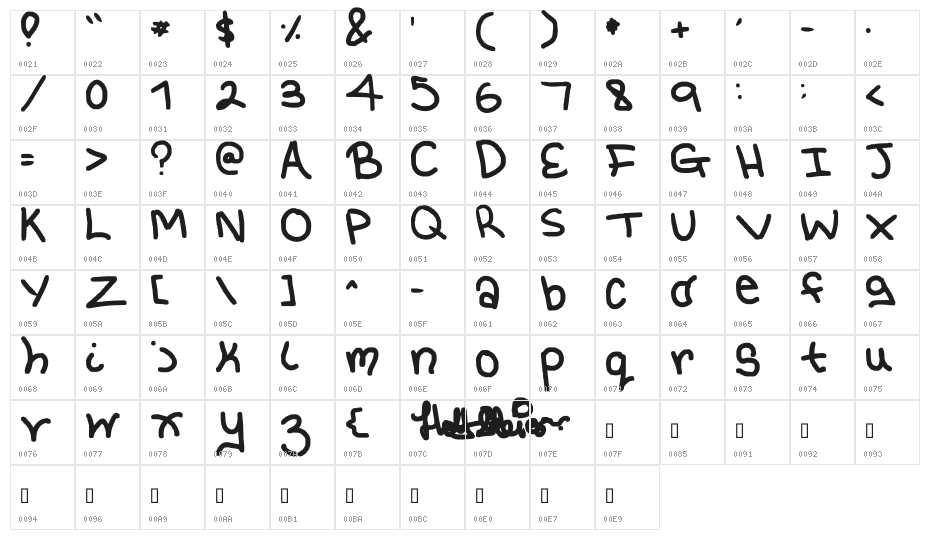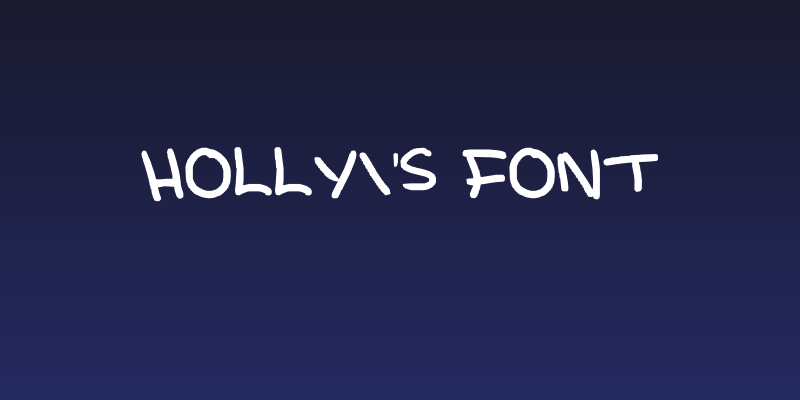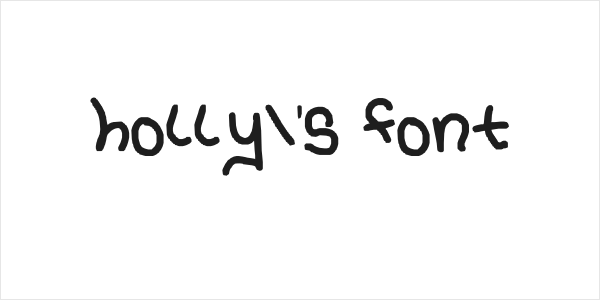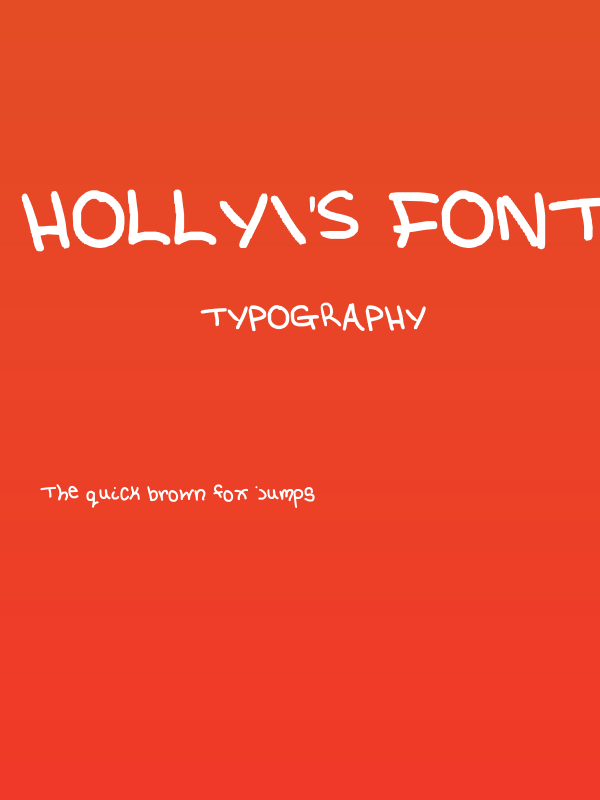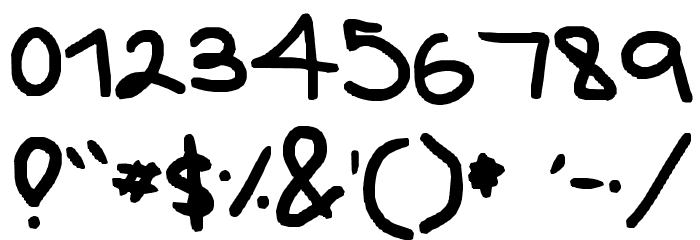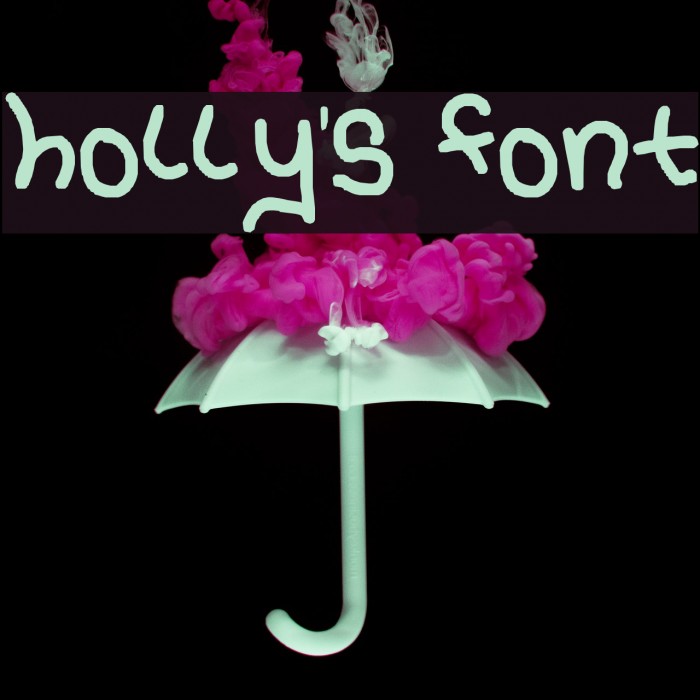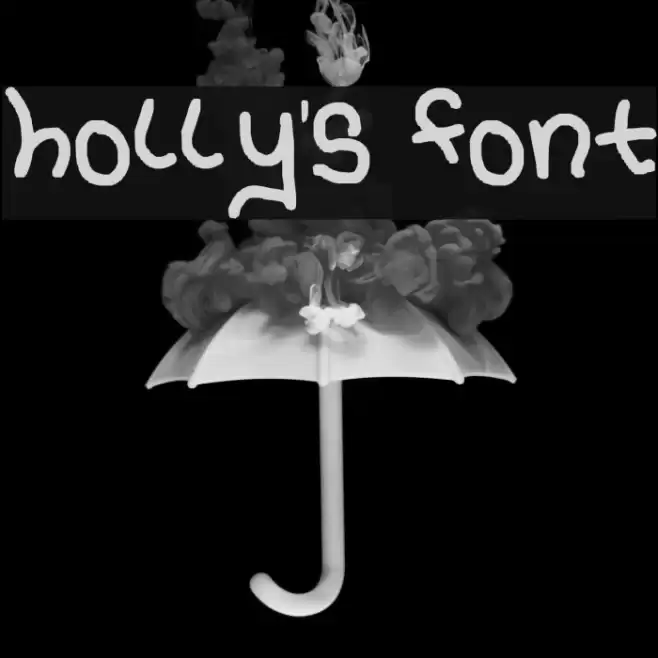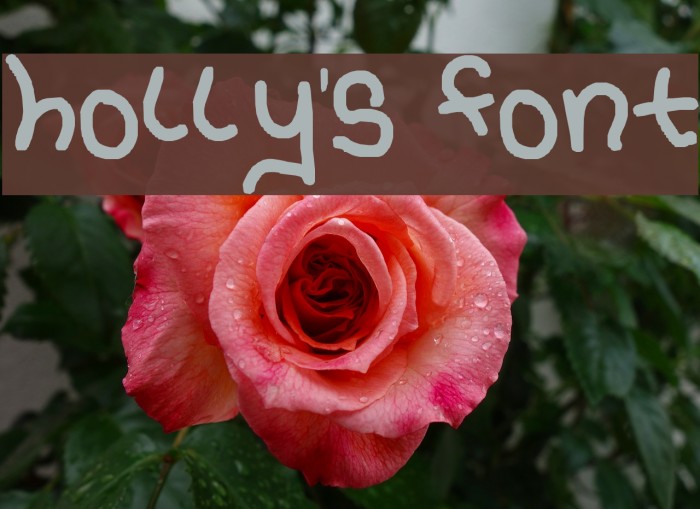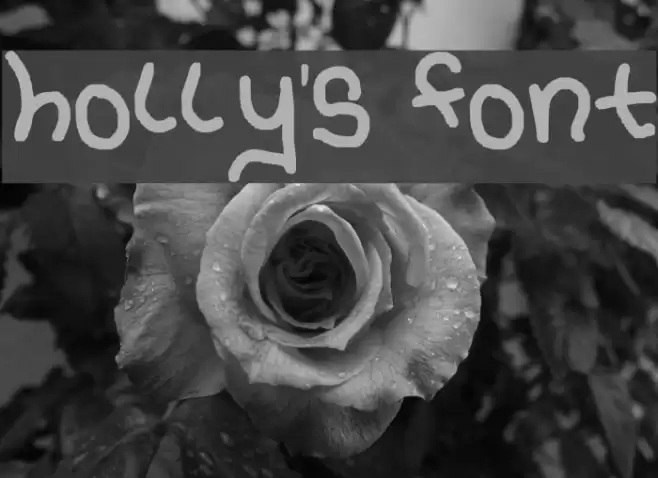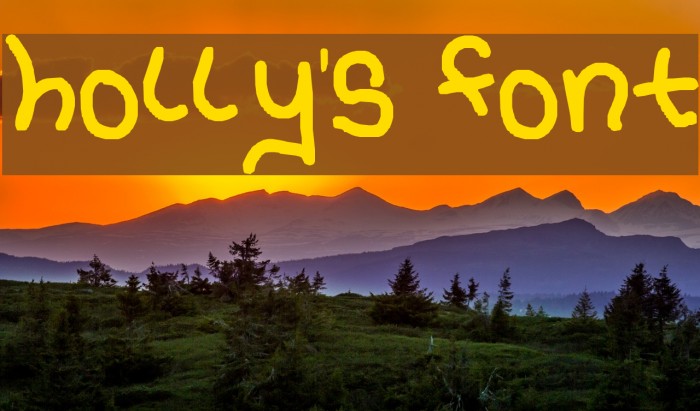
holly's font Font
holly's font Description
This font features a playful and casual handwritten style, characterized by its irregular and organic letterforms. The strokes are thick and bold, giving it a strong presence on the page. The letters have a slightly uneven baseline, adding to the informal and whimsical feel. The characters are rounded and smooth, with a consistent stroke width throughout. This font includes both uppercase and lowercase letters, numerals, and a variety of special characters, making it versatile for various design needs. Its unique style is perfect for projects that require a personal touch or a fun, approachable aesthetic.
| Proposed Projects | Ideal for greeting cards, children's books, playful branding, and social media graphics. |